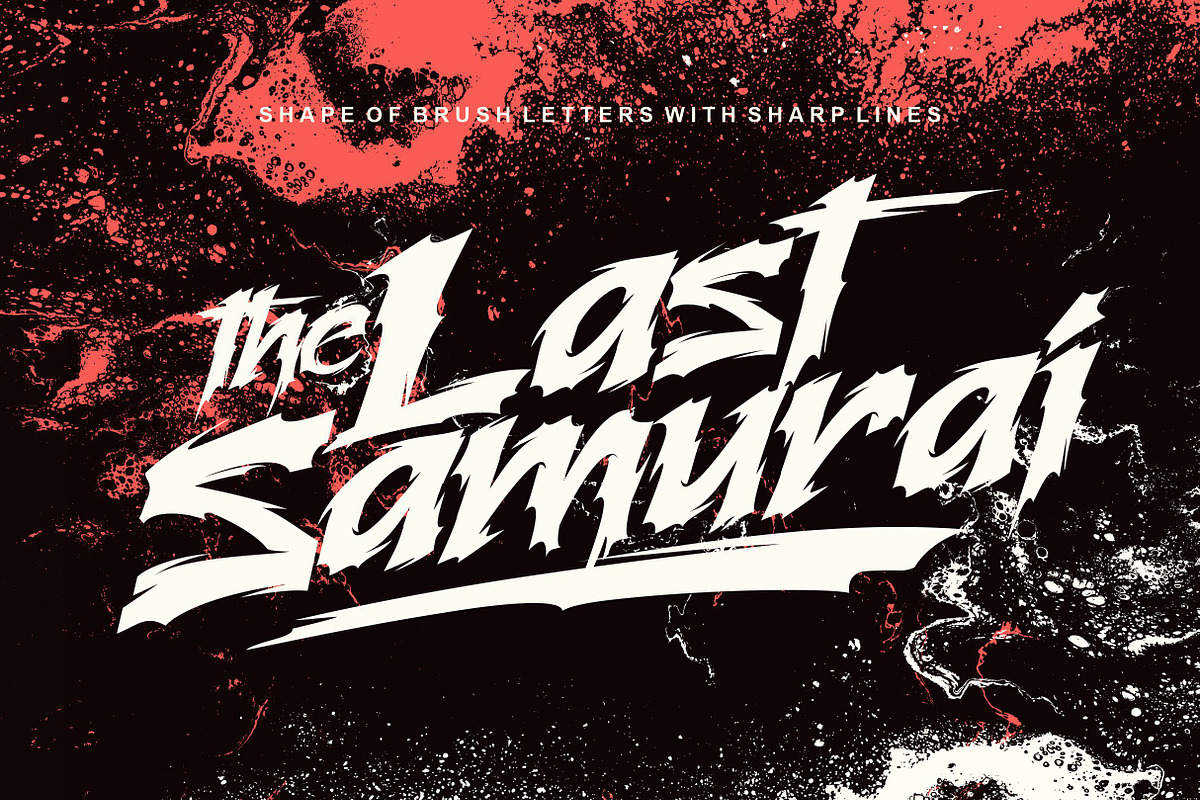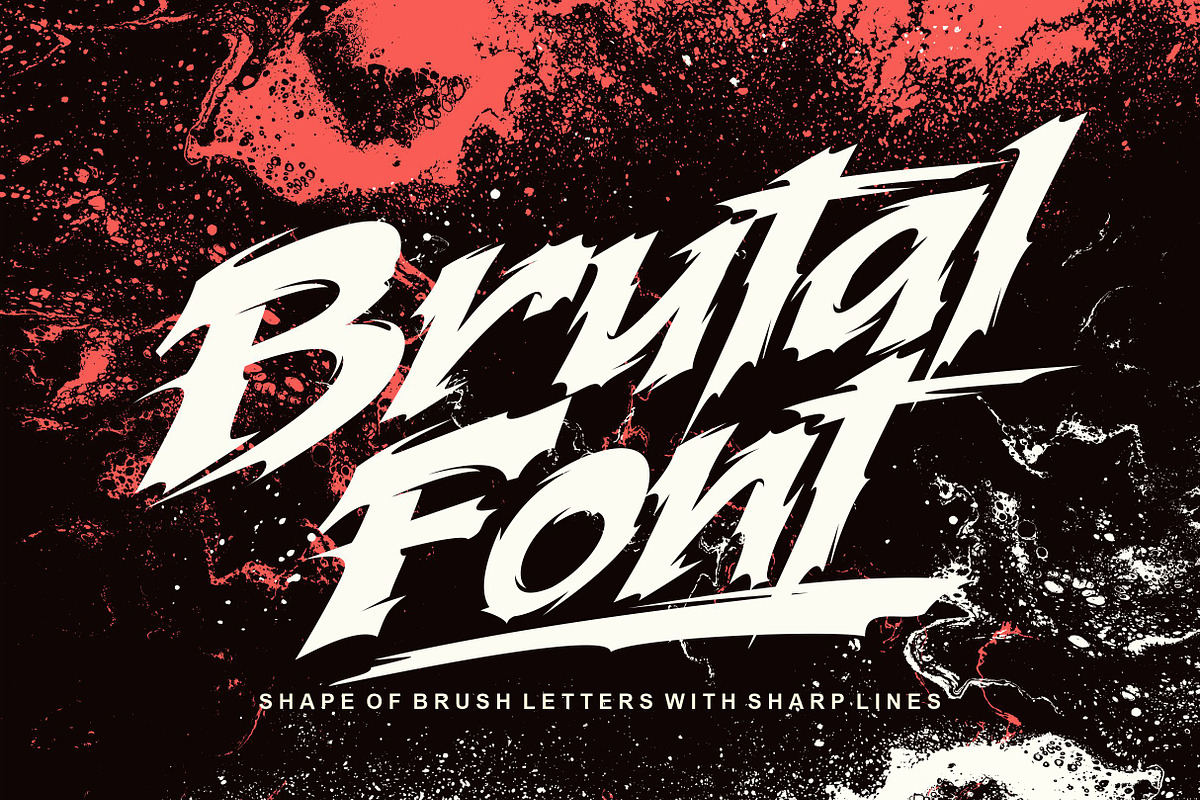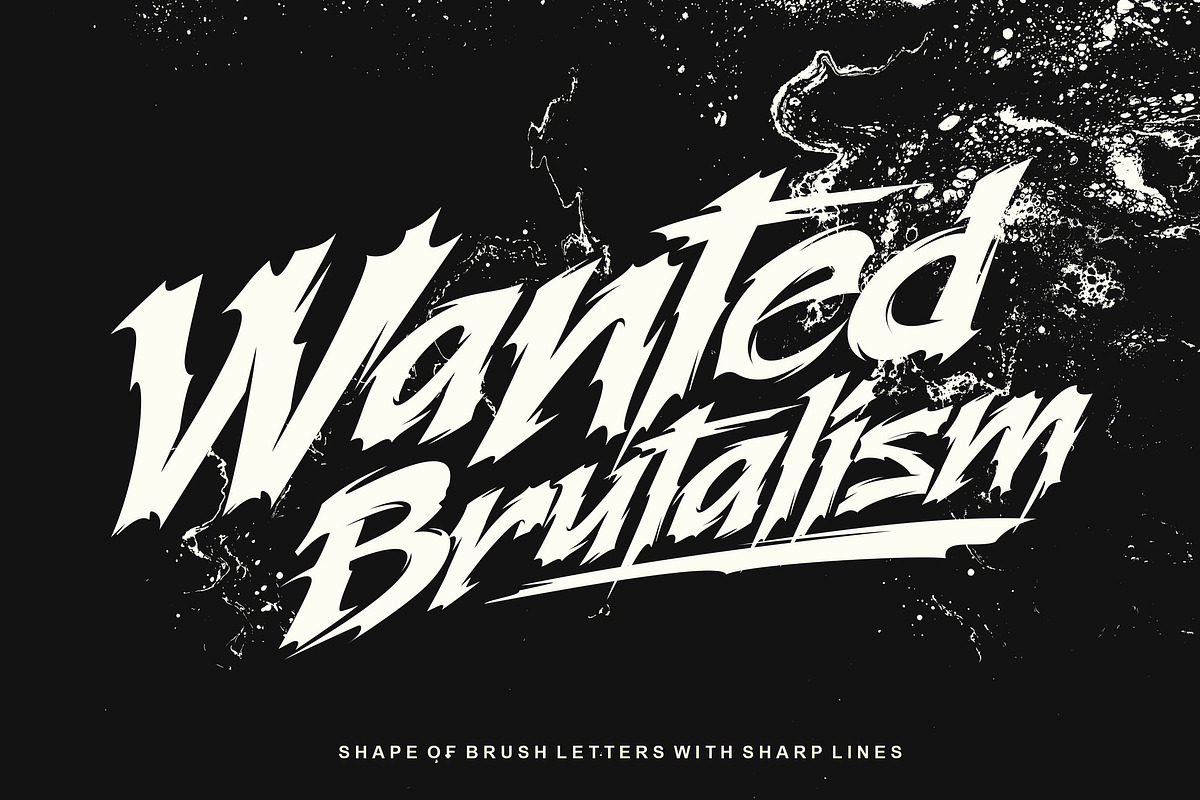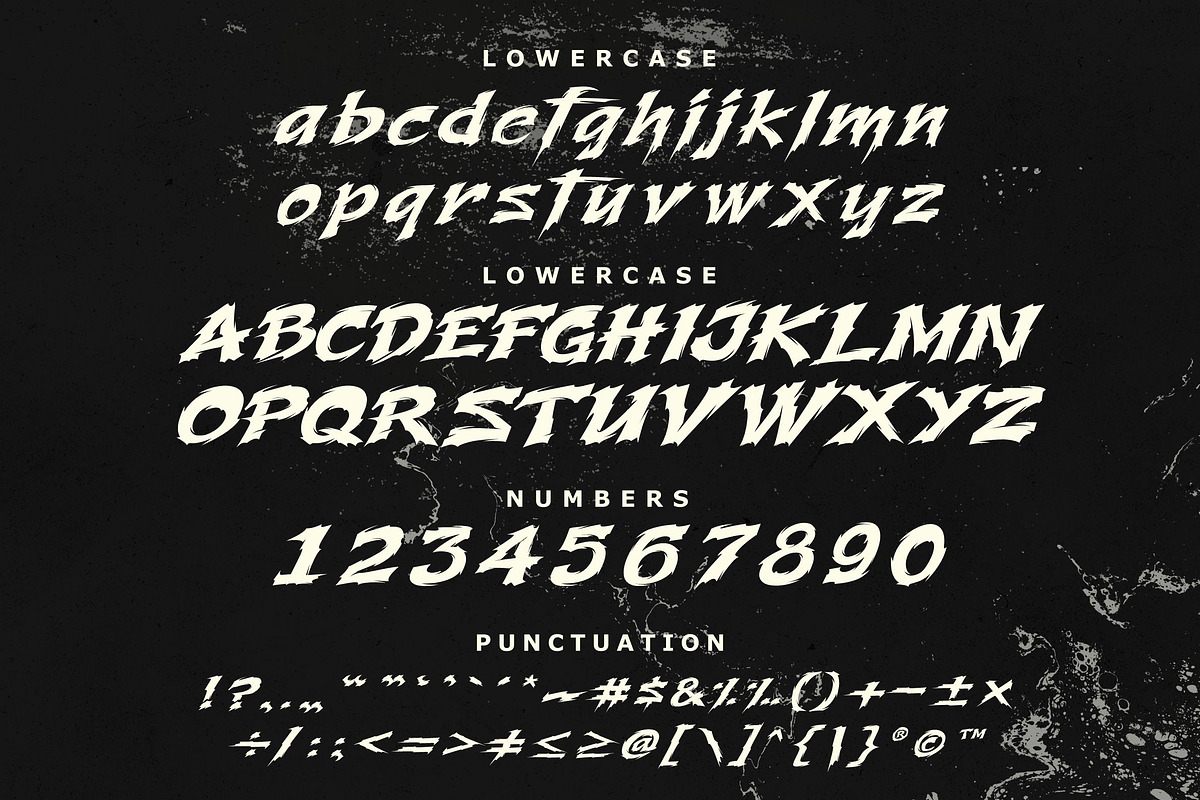
Brutal font
BrutalFont consists form letters brush with sharp lines that give the impression of cruel
Brutal Font very suitable for the theme of horror, sword action, action game covers, logos & branding, product design, labels and so on.
Brutal font by Blacksheep studio fits naturally into Branding, posters, packaging, typography.